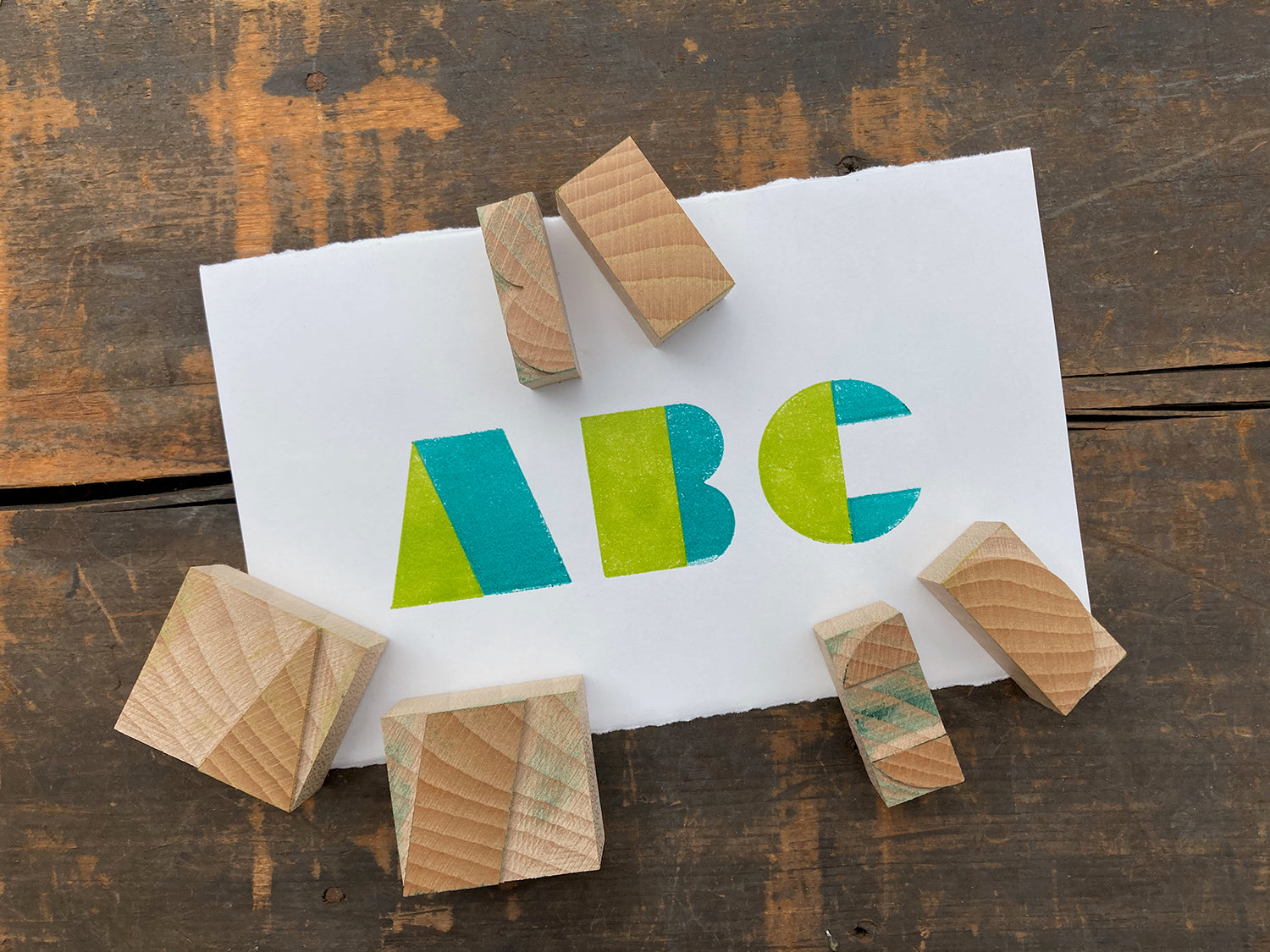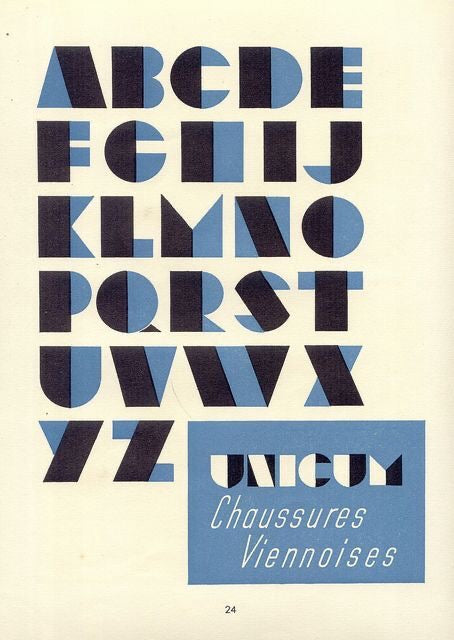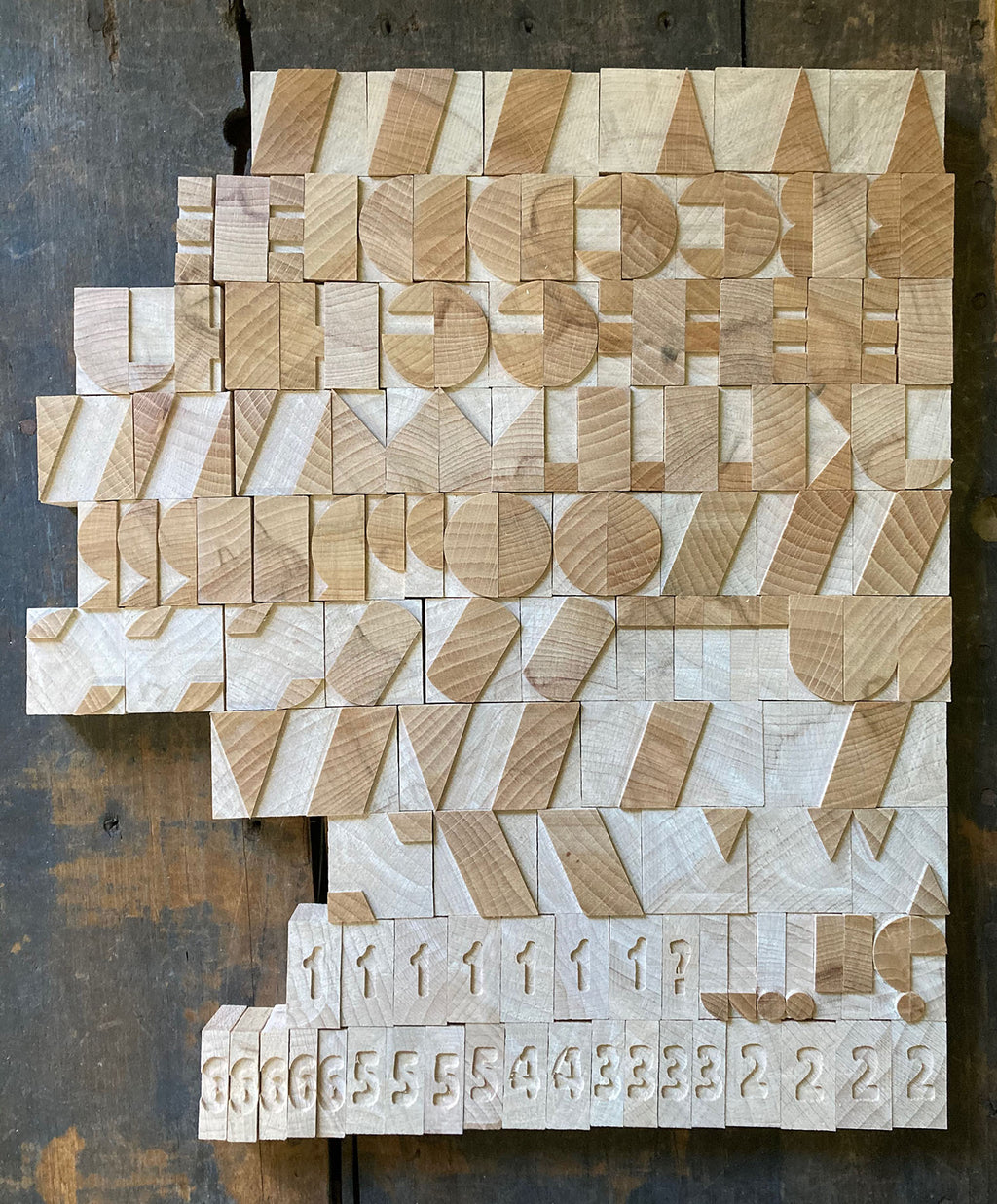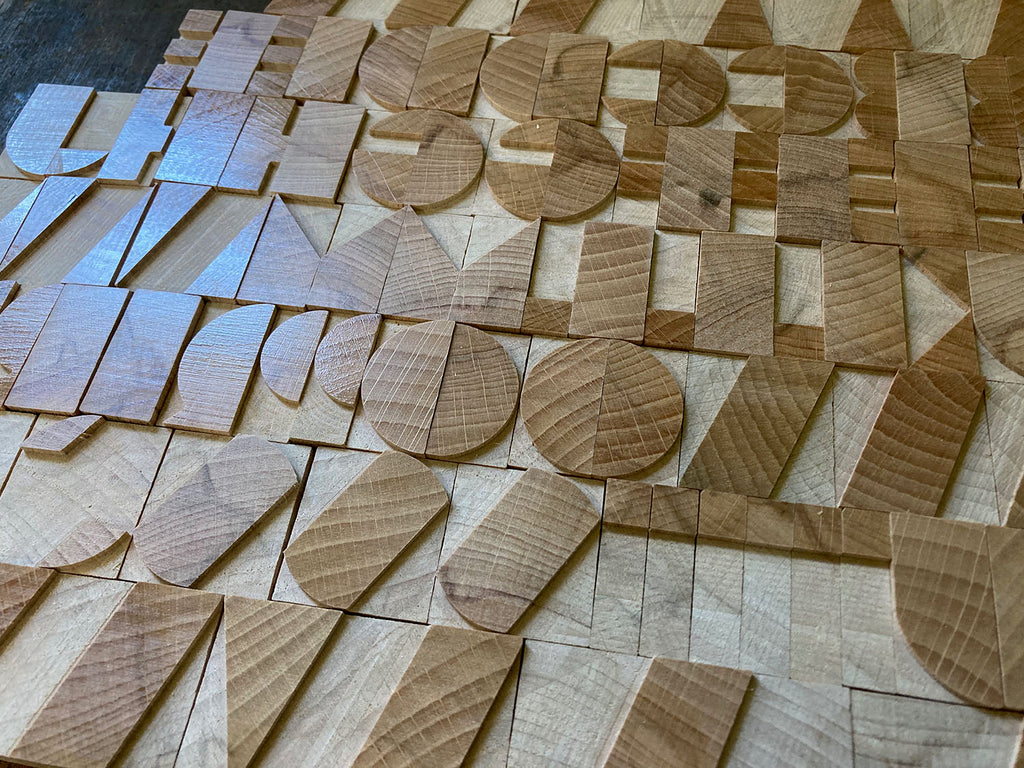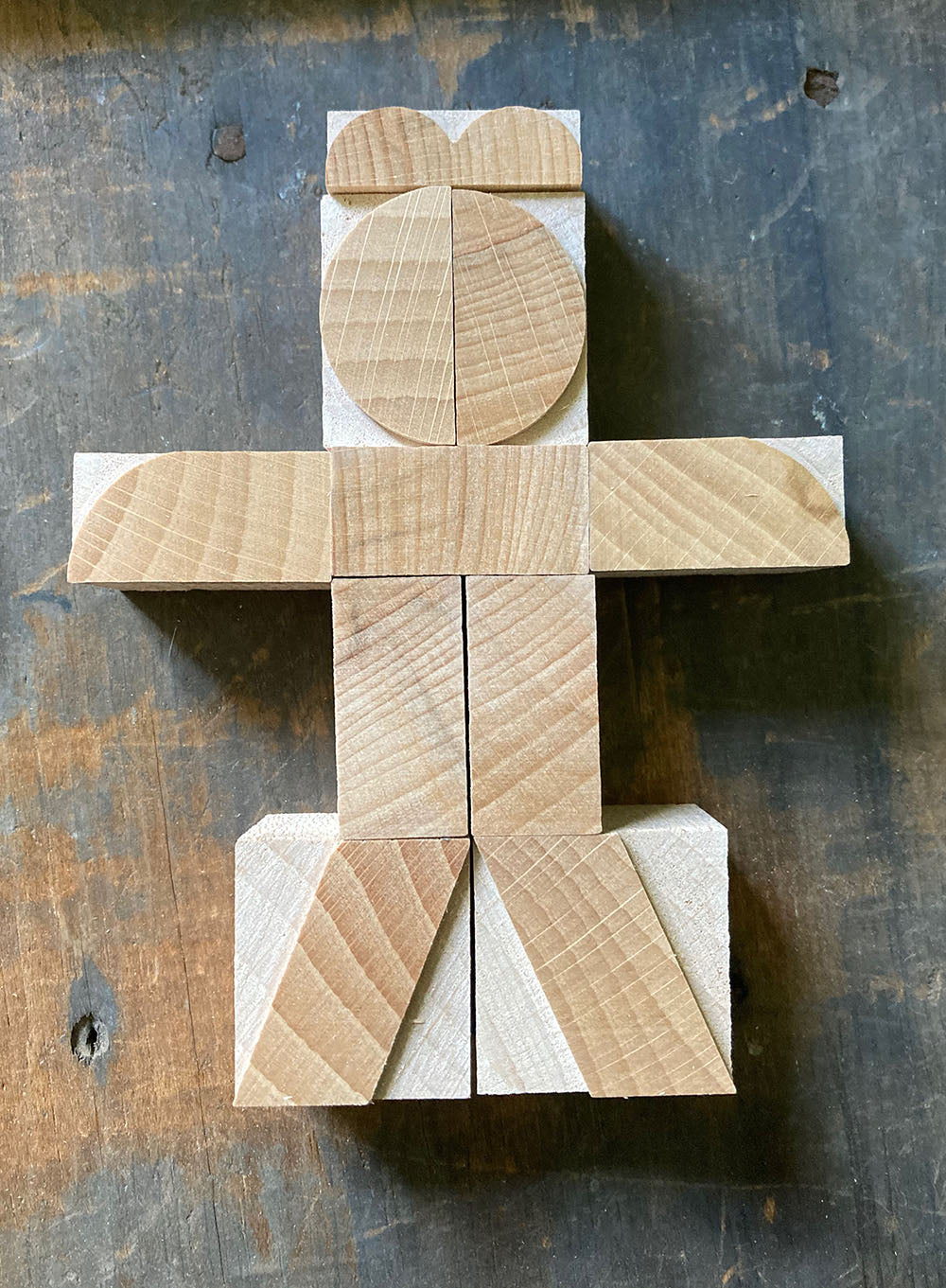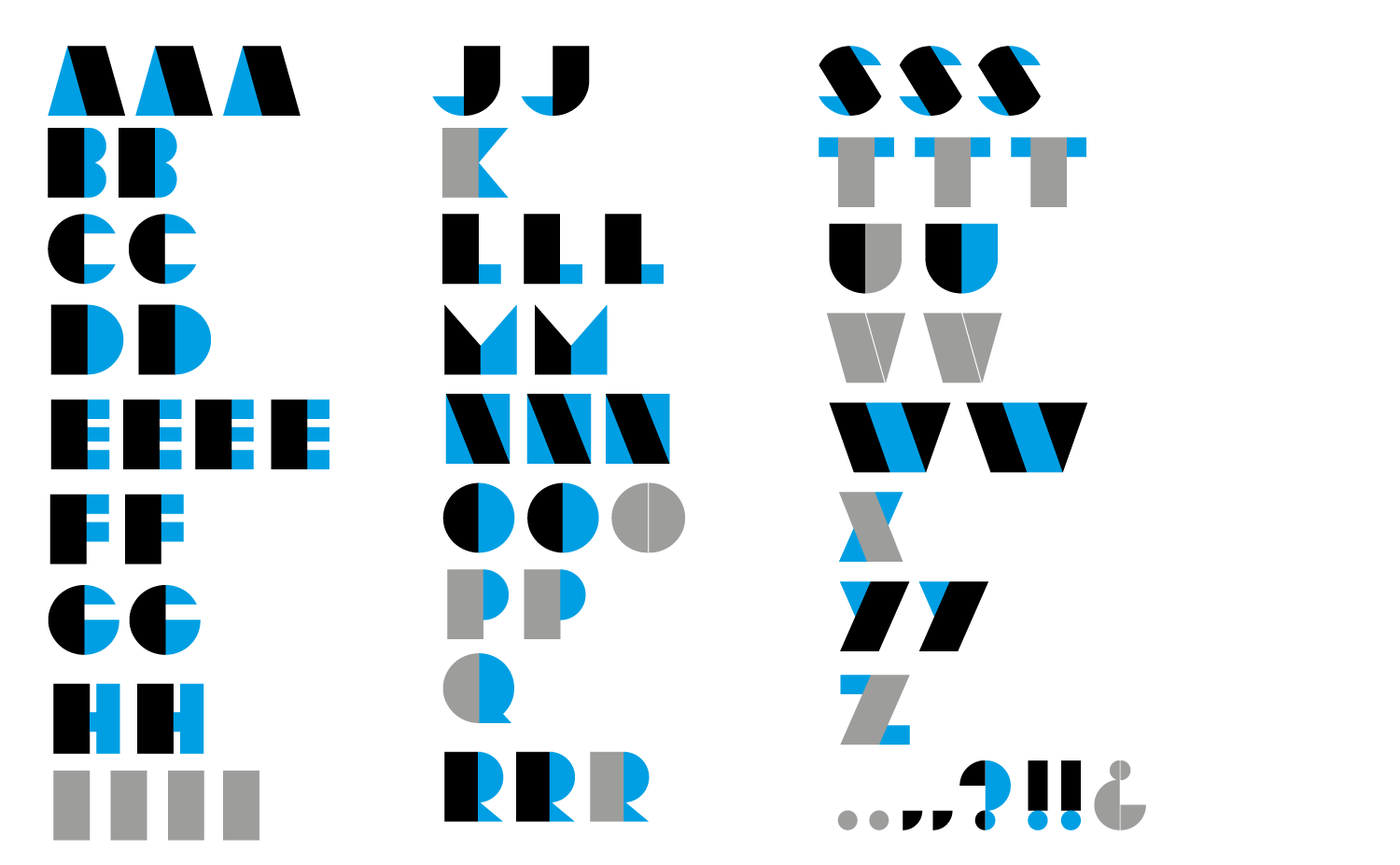
'Unicomodular' Modular letterpress woodtype typeface
'Unicomodular' Modular typeface based on a design by Martin Meijer in 1949 and redrawn and made modular by McKellier Wood Type.
Consists of 104 blocks which will make a 3A scheme using some repeated blocks - see layout below - the grey blocks using existing blocks to create the characters.
Complete with 27 spacing blocks to make 2 colour registration easier on press.
8 line (33.8mm) cut from end grain English hardwood using a combination of modern CNC technology and traditional hand woodworking tools (including an original printers saw), made to English type-high (0.918in or 23.3mm) within plus or minus 0.1mm tolerance, with a traditional polished shellac printing surface.